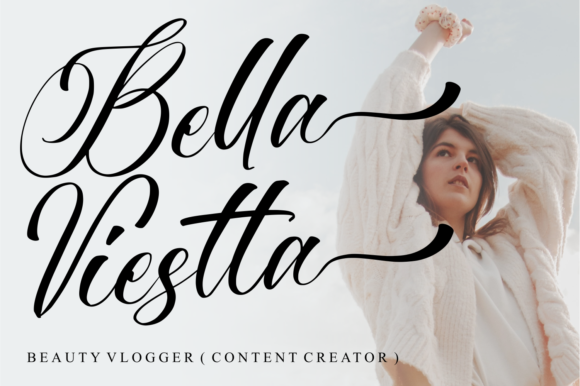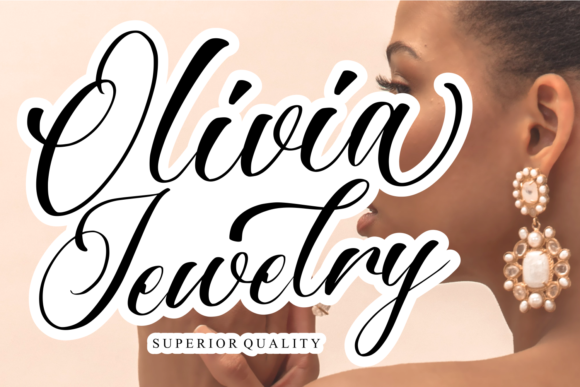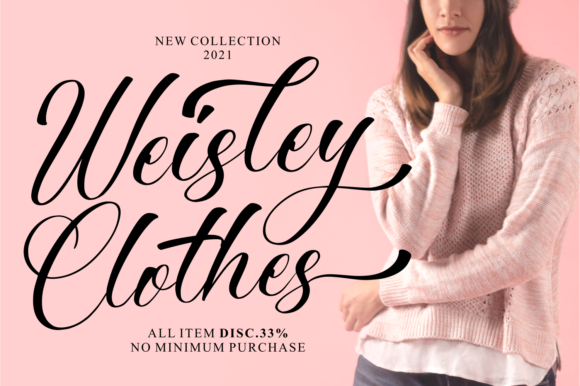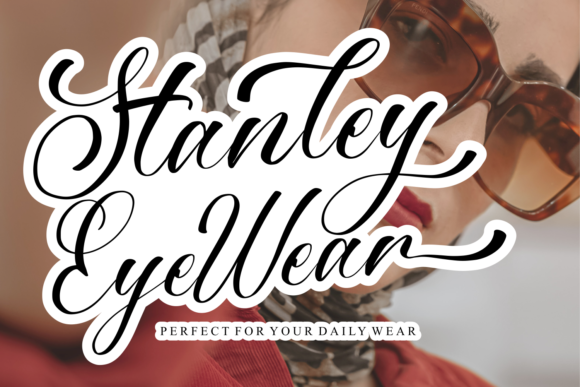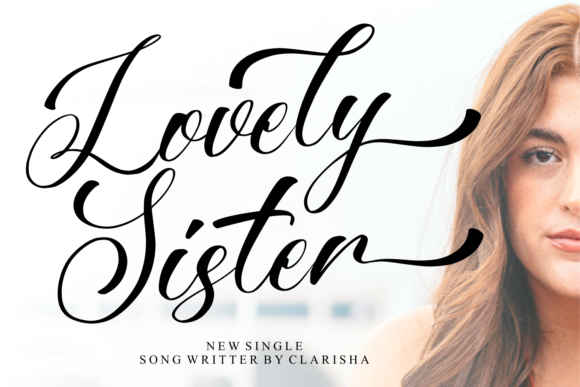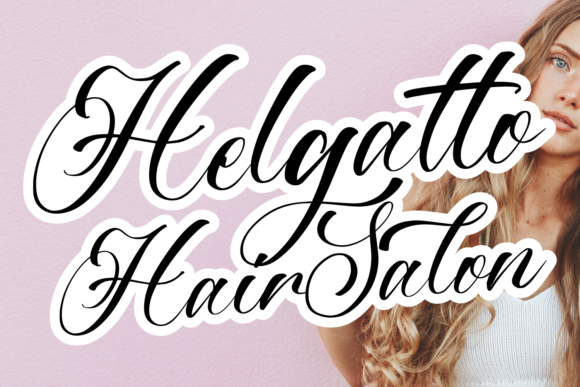
Discover the Magic of Anadelia Font
As a designer, there’s nothing quite like the thrill of creating something from scratch. The blank page stares back at you, a canvas waiting to be brought to life. And then, it happens – a spark of inspiration strikes, and the words begin to flow. The world of typography is full of endless possibilities, but sometimes it’s the simplest fonts that make the biggest impact.
Enter the Anadelia Font, a timeless and elegant handwritten font that’s perfect for creating eye-catching logos, branding, and quotes. Its beautiful, flowing script is sure to captivate your audience and leave a lasting impression. With its PUA encoding, accessing all the glyphs and swashes is a breeze, making it a valuable asset for designers looking to add a touch of sophistication to their work.
Anadelia Font Key Features
- Font Family: Anadelia Font is a modern script font designed for elegant and sophisticated typography.
- Unique Characteristics: Anadelia Font features a unique blend of elegance and sophistication, making it suitable for a wide range of applications, including invitations, wedding stationery, and luxury branding.
Anadelia Font Review
Overall, I was pretty impressed with Anadelia Font. It’s a beautiful, elegant script font that’s perfect for creating a sophisticated and luxurious feel in your designs. ✨ The flowing lines and subtle flourishes give it a sense of movement and energy, making it a great choice for titles, headings, and other prominent text elements.
Here are some of the things that I think work well in Anadelia Font:
- ✨ Elegant and sophisticated feel
- ✨ Beautiful flowing lines and subtle flourishes
- ✨ Great for titles, headings, and other prominent text elements
- ✨ Compatible with a wide range of design software
However, I did encounter a few limitations while working with Anadelia Font:
- ⚠️ Limited font sizes and styles available
- ⚠️ Can be difficult to read at very small font sizes
- ⚠️ May not be the best choice for body text or large blocks of text
Overall, I think Anadelia Font is a great choice for designers who want to add a touch of elegance and sophistication to their designs. While it may have a few limitations, its unique and beautiful style makes it a great addition to any design project.
Tip: Use Anadelia Font for titles and headings to add a touch of elegance to your design.
Tip: Use Anadelia Font for typography-heavy designs, such as logos or posters.
Tip: Use Anadelia Font for titles and headings in presentations or documents.
Anadelia Font is ideal for:
- Designing elegant and sophisticated titles and headings.
- Creating typography-heavy designs, such as logos or posters.
- Adding a touch of elegance to presentations or documents.
Alternatives to Anadelia Font for Designers
Great Vibes is a beautiful, elegant script font perfect for creating a luxurious and sophisticated look. It’s ideal for use in wedding invitations, high-end branding, and fine art projects.
Compared to Anadelia Font, Great Vibes has a more refined and delicate feel, making it suitable for projects that require a touch of sophistication.
Carolyna Pro is a modern script font that combines elegance and playfulness. It’s perfect for use in branding, advertising, and editorial projects where a touch of sophistication is needed.
Compared to Anadelia Font, Carolyna Pro has a more modern and edgy feel, making it suitable for projects that require a fresh and trendy look.